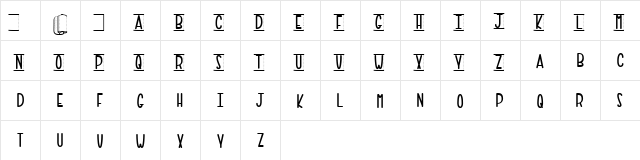
Complete PAPER TOWEL Regular glyph index. Displaying only characters natively supported by PAPER TOWEL Regular font.
PAPER TOWEL is a composed and adaptable typeface that performs quietly and consistently across a wide range of design contexts.